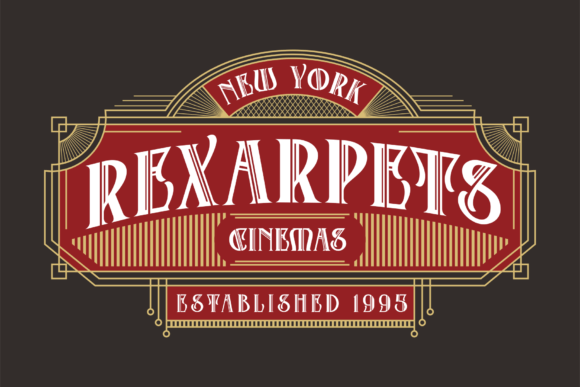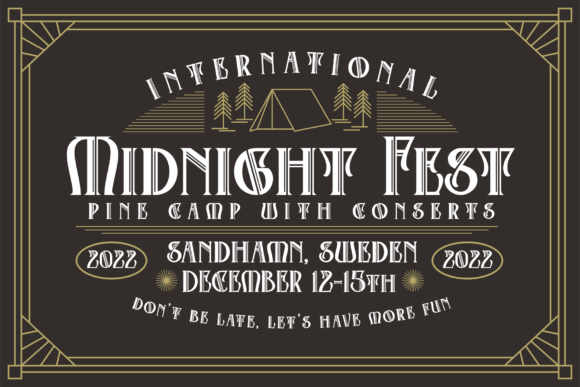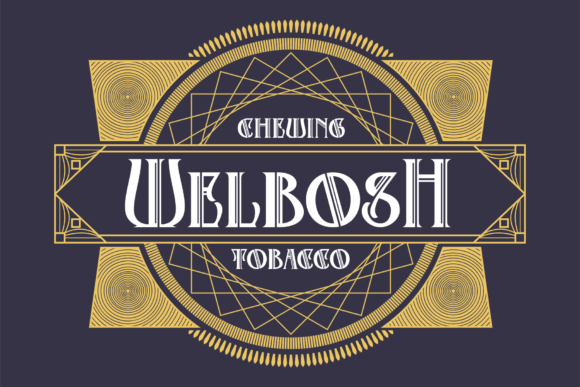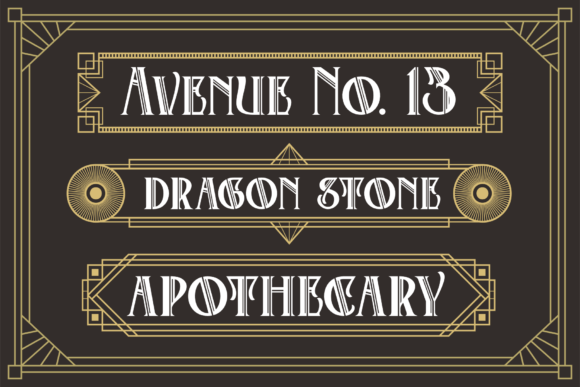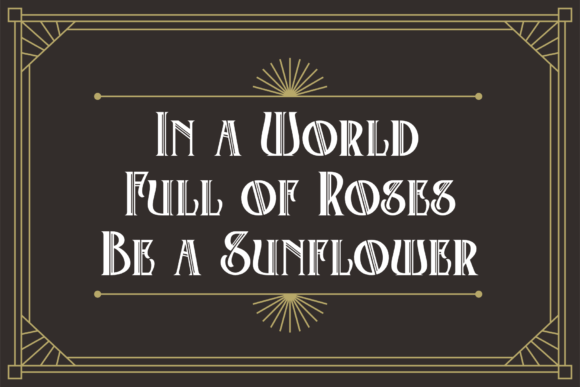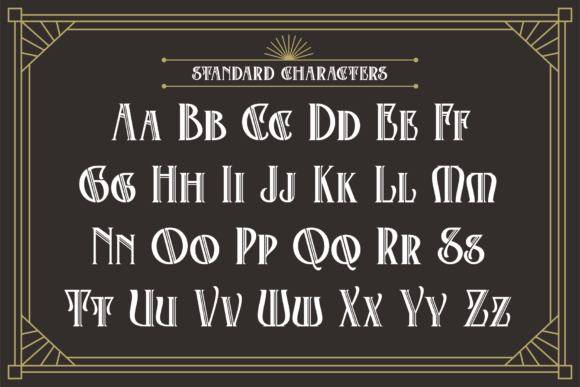
Discover the Elegance of Art Nouveco Font: A Stylish Blend of Art Nouveau and Art Deco
In the world of typography, few fonts manage to capture the essence of multiple artistic movements as seamlessly as Art Nouveco. This stylish display typeface is a unique blend of Art Nouveau and Art Deco, two of the most influential art movements of the 20th century. The result is a font that exudes elegance, sophistication, and a touch of vintage charm, making it an ideal choice for designers and crafters looking to add a distinctive flair to their projects.
The Artistic Influences Behind Art Nouveco
Art Nouveau, popular in the late 19th and early 20th centuries, is characterized by its use of sinuous, organic lines and a sense of dynamism. It influenced various art forms, from architecture to jewelry. On the other hand, Art Deco emerged in the 1920s, marked by its geometric shapes, metallic materials, and a more streamlined look. Both movements have left a lasting legacy in the world of art and design.
Art Nouveco Font brings together the best of both worlds, combining the fluidity and natural beauty of Art Nouveau with the geometric precision and modernity of Art Deco. This fusion results in a font that is not only visually striking but also incredibly versatile.
Key Features of Art Nouveco Font
- Unique Artistic Influences: The font’s design is deeply rooted in the artistic movements of Art Nouveau and Art Deco, offering a distinctive look that sets it apart from more conventional typefaces.
- Elegant and Sophisticated: Art Nouveco’s characters are designed to convey a sense of elegance and sophistication, making it perfect for projects that require a touch of luxury or vintage charm.
- Versatile: Whether you’re working on a logo, a poster, a website header, or any other design project, Art Nouveco can adapt to various styles and themes, thanks to its unique blend of artistic influences.
- Display Typeface: As a display font, Art Nouveco is optimized for use at larger sizes, where its intricate details and artistic flair can be fully appreciated.
Using Art Nouveco in Design Projects
Art Nouveco’s versatility makes it suitable for a wide range of design projects. Here are a few ideas on how to incorporate this stylish font into your work:
- Logos and Branding: The unique and elegant look of Art Nouveco makes it an excellent choice for logos, especially for brands that want to convey a sense of luxury, history, or artistic flair.
- Posters and Flyers: Add a touch of vintage sophistication to your promotional materials with Art Nouveco. Its readability and stylish appearance make it perfect for headlines and titles.
- Web Design: Use Art Nouveco as a display font for website headers, banners, or any other element where you want to make a strong visual impact.
- Packaging and Product Design: For products that aim to stand out with a luxurious or vintage appeal, Art Nouveco can be a great addition to your design.
Art Nouveco Font offers a refreshing blend of Art Nouveau and Art Deco styles, making it a valuable addition to any designer’s toolkit. Its unique artistic influences, combined with its elegance and versatility, allow for a wide range of creative possibilities. Whether you’re a professional designer or a crafter looking to add a personal touch to your projects, Art Nouveco is sure to inspire and elevate your designs.
With Art Nouveco, you don’t just choose a font; you choose a style, an era, and a way to connect with your audience on a deeper level. So, why settle for ordinary when you can create something truly extraordinary with Art Nouveco Font?